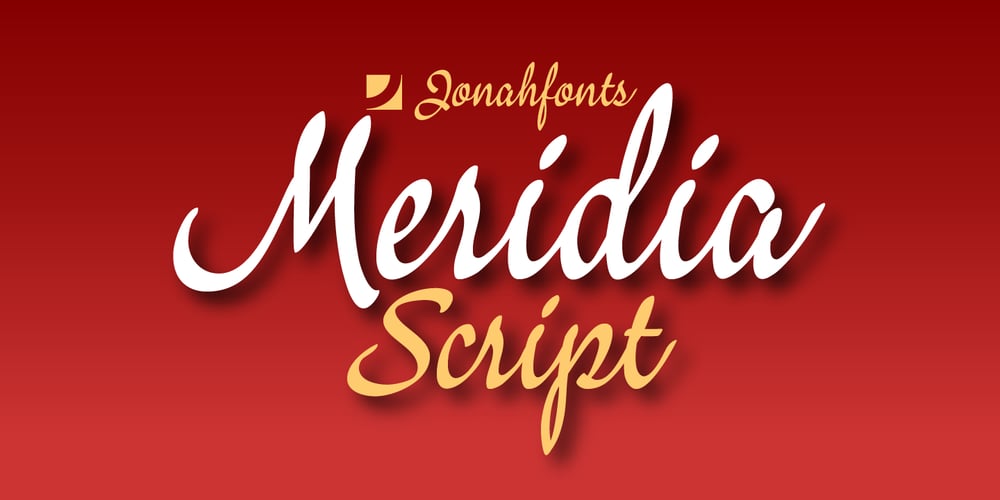
Meridia Script
Meridia Script font
Meridia Script Font Family was designed by published by Jonahfonts. Meridia Script contains 1 styles and family package options. Legible connected-script. Applications include captions, fashion headlines, packaging, invitations, cards, posters, ads, greeting cards, book jackets, and covers.